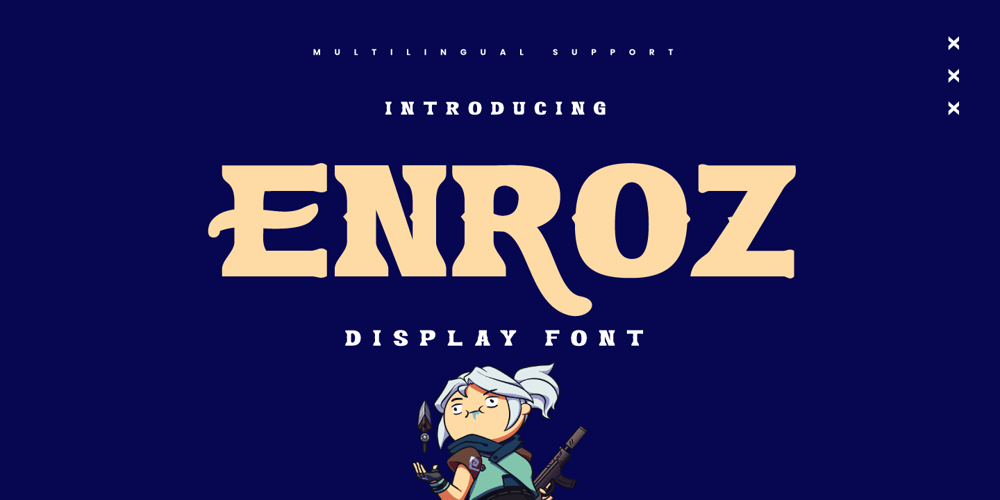
Enroz
Enroz font
Enroz Font Family was designed by Murozakul Akhsan and published by Trabas Kriya. Enroz contains 1 styles and family package options. ENROZ is a display font that commands attention. Its bold, striking characters make it perfect for headlines, posters, and other designs where you need to make a strong impact. With ENROZ, your message will never be overlooked.What’s Included:- All glyphs and Feature- We highly recommend using a program that supports OpenType features and Glyphs panels like many Adobe apps and Corel Draw so that you can see and access all Glyph variations.- PUA Encoded Characters, Fully accessible without additional design software.- Fonts include Multilingual: Support for 85 languages. Afrikaans, Albanian, Asu, Basque, Bemba, Bena, Breton, Catalan, Chiga, Cornish, Croatian, Czech, Danish, Dutch, Embu, English, Esperanto, Estonian, Filipino, Finnish, French, Friulian, Galician, Gusii, Hungarian, Indonesian, Irish, Italian, Kabuverdianu, Kalenjin, Kamba, Kikuyu, Kinyarwanda, Latvian, Lithuanian, Lower, Sorbian, Luo, Luxembourgish, Luyia, Machame, Makhuwa-Meetto, Makonde, Malagasy, Maltese, Manx, Meru, Morisyen, North, Ndebele, Norwegian Bokmål, Norwegian Nynorsk, Nyankole, Oromo, Polish, Portuguese, Quechua, Romanian, Romansh, Rombo, Rundi, Rwa, Samburu, Sango, Sangu, Scottish, Gaelic, Sena, Serbian, Shambala, Shona, Slovak, Slovenian, Soga, Somali, Spanish, Swahili, Swedish, Swiss German, Taita, Teso, Turkish, Upper Sorbian, Uzbek (Latin), Volapük, Vunjo, Walser, Zulu.